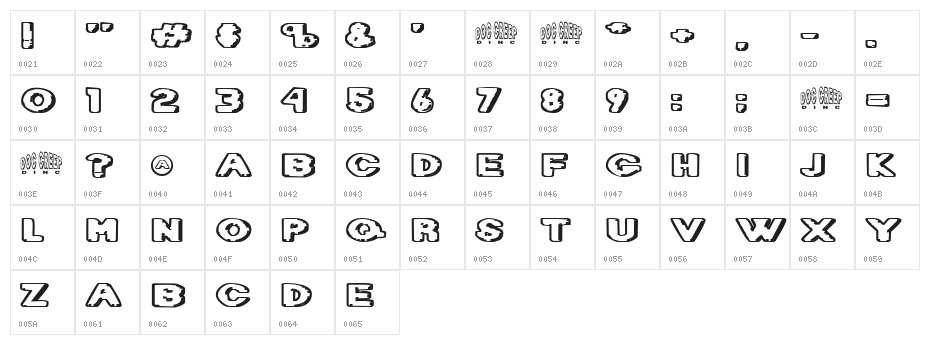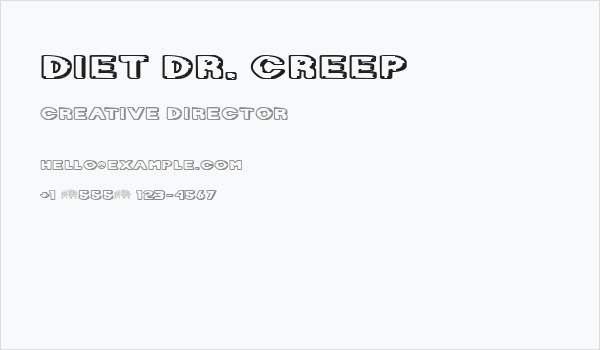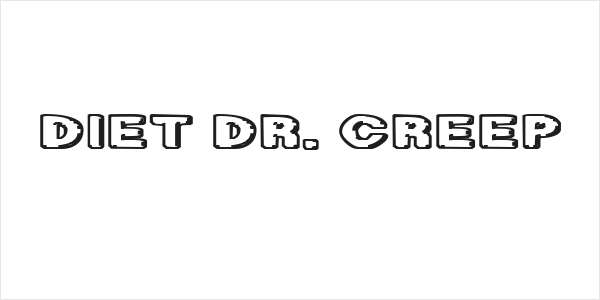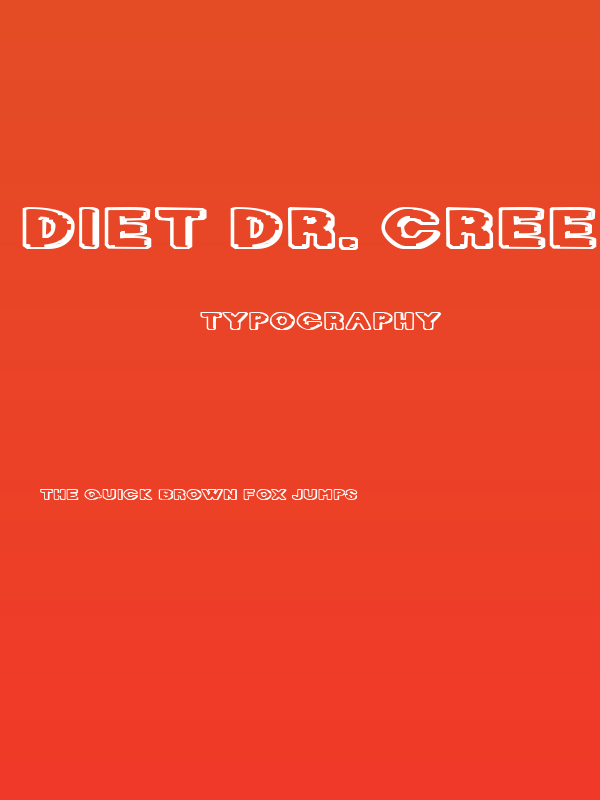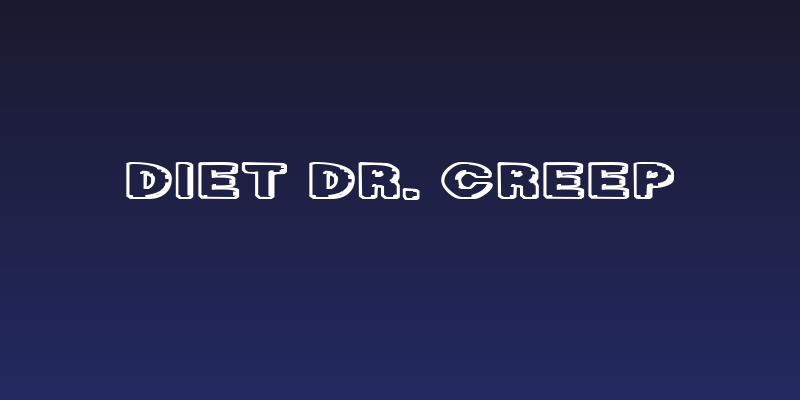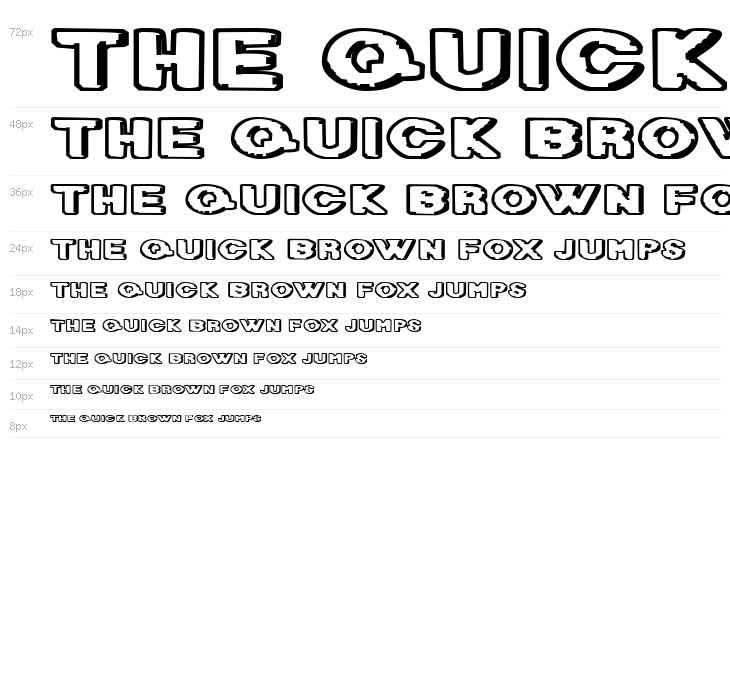
Diet Dr. Creep Font
Diet Dr. Creep Description
This font features a bold, playful design with a distinct outline that gives it a three-dimensional appearance. The characters are uppercase and lowercase, with a consistent thickness that adds to its boldness. The numbers and special characters maintain the same style, ensuring uniformity across all glyphs. The font's unique outline effect creates a sense of depth, making it stand out in any design. Its playful and slightly retro vibe makes it suitable for creative projects that require a fun and engaging typeface.
| Overall Style | Playful, Retro |
| Proposed Projects | Ideal for posters, children's books, comic strips, and playful branding projects. |